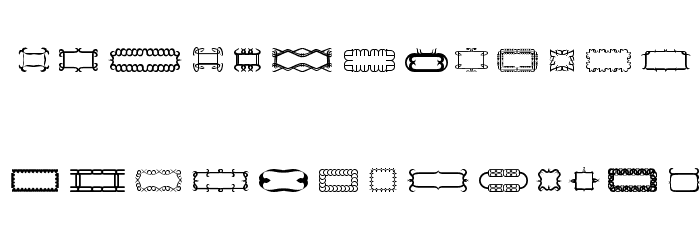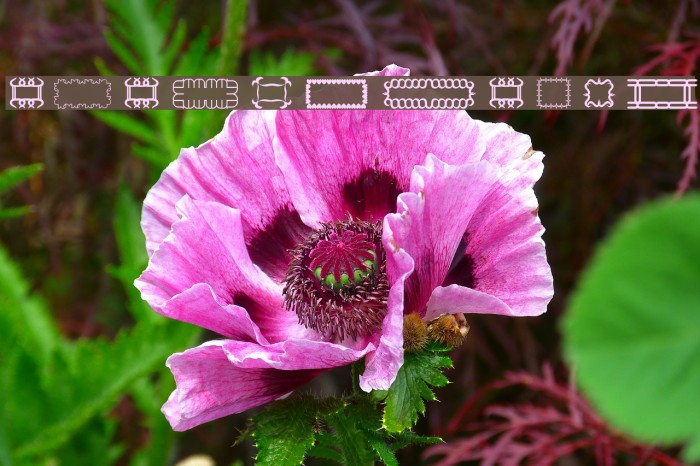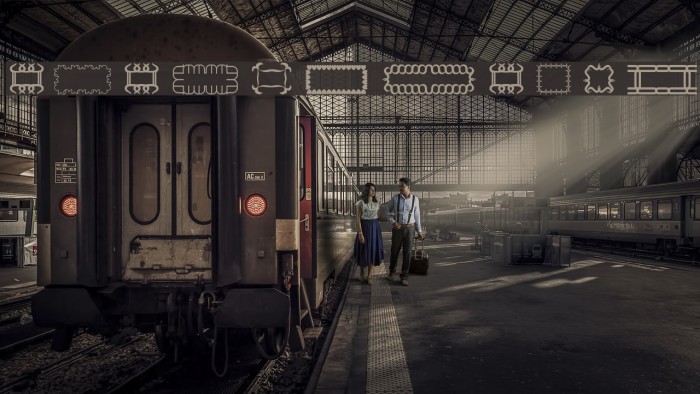
Elegance two Font
This design features a series of intricate, decorative frames and borders, each with unique patterns and embellishments. The elements are characterized by their ornate and detailed craftsmanship, showcasing a variety of shapes and styles that range from symmetrical to abstract. The designs incorporate elements such as curves, loops, and geometric patterns, creating a visually engaging and artistic collection. These elements are not traditional alphanumeric characters but rather decorative motifs that could be used for embellishing documents, invitations, or artistic projects.
Intricate decorative frames and borders with unique patterns.
- Proposed Projects: Ideal for use in artistic projects, invitations, decorative documents, or as embellishments in graphic design.
- Use Case: Decorative elements, Artistic embellishments